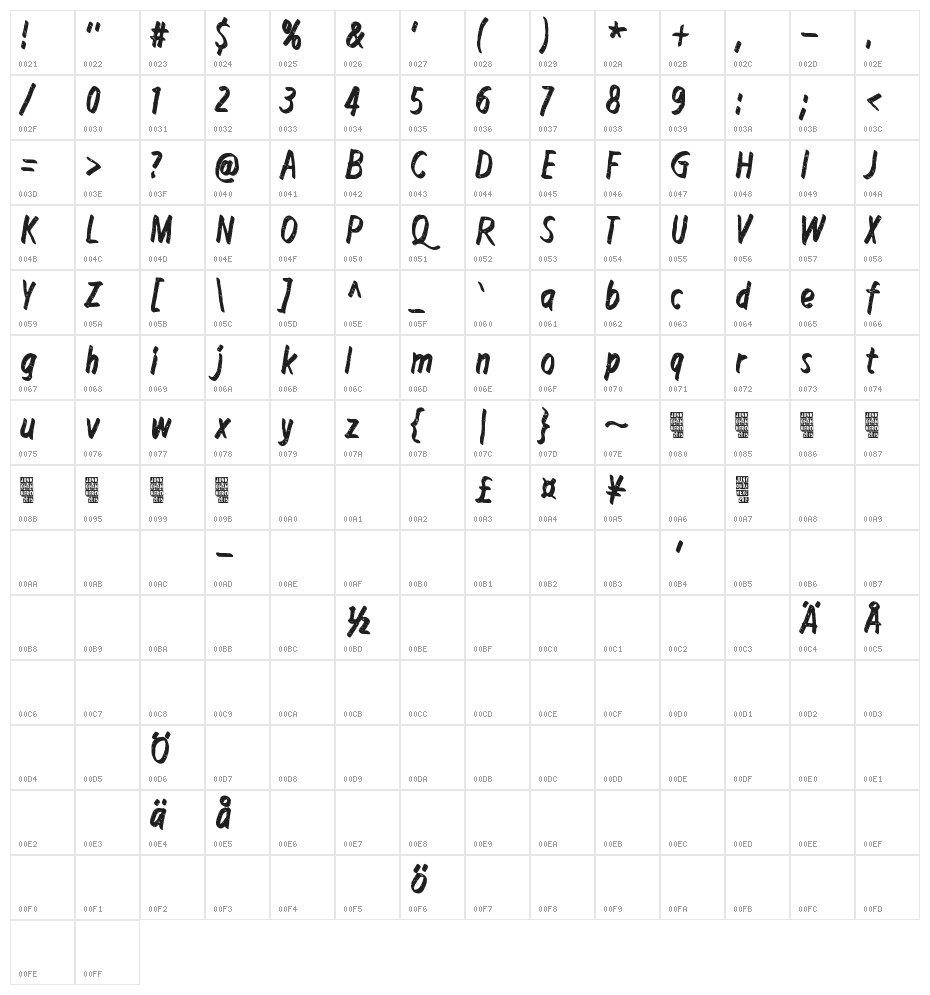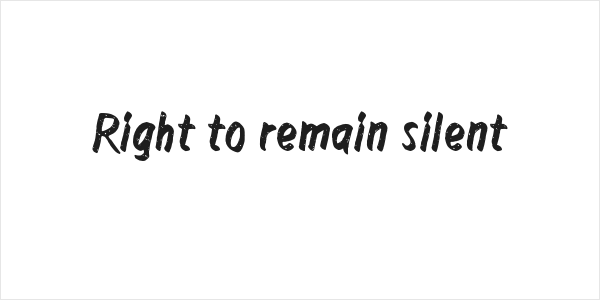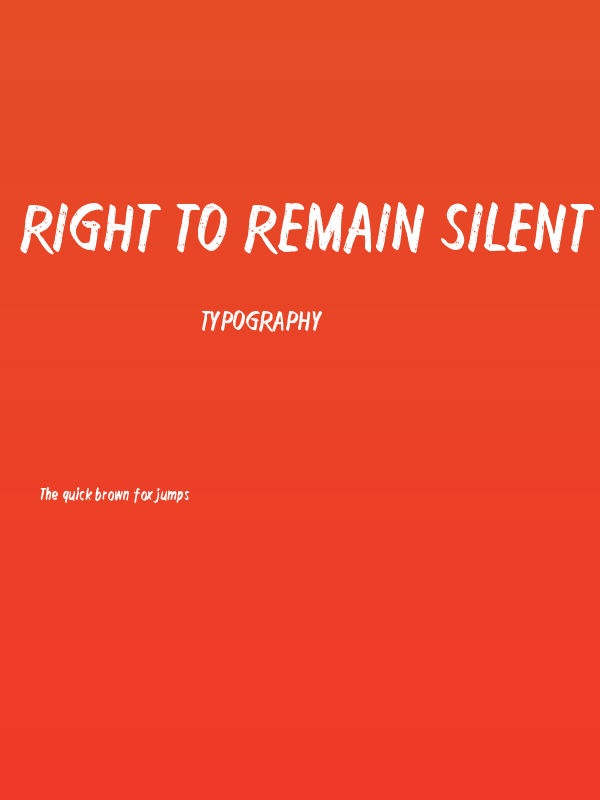
Right to remain silent Font
Right to remain silent Description
This font features a bold, hand-drawn style with a textured, distressed appearance. The characters are slightly irregular, giving it a casual and artistic feel. The uppercase and lowercase letters maintain a consistent style, with rounded edges and a playful, energetic vibe. Numbers and special characters follow the same aesthetic, making the font versatile for various creative projects. The texture adds depth and character, making it stand out in designs that require a personal touch.
| Proposed Projects | Ideal for posters, album covers, branding, and any project needing a bold, artistic touch. |